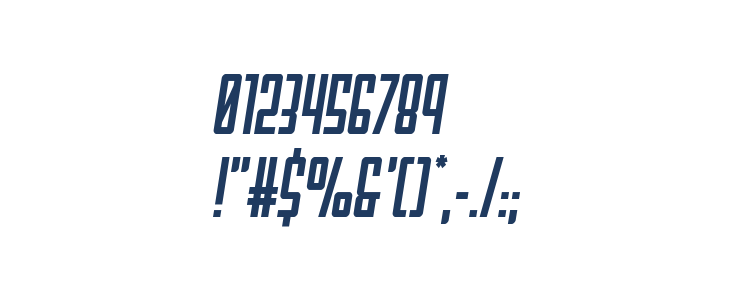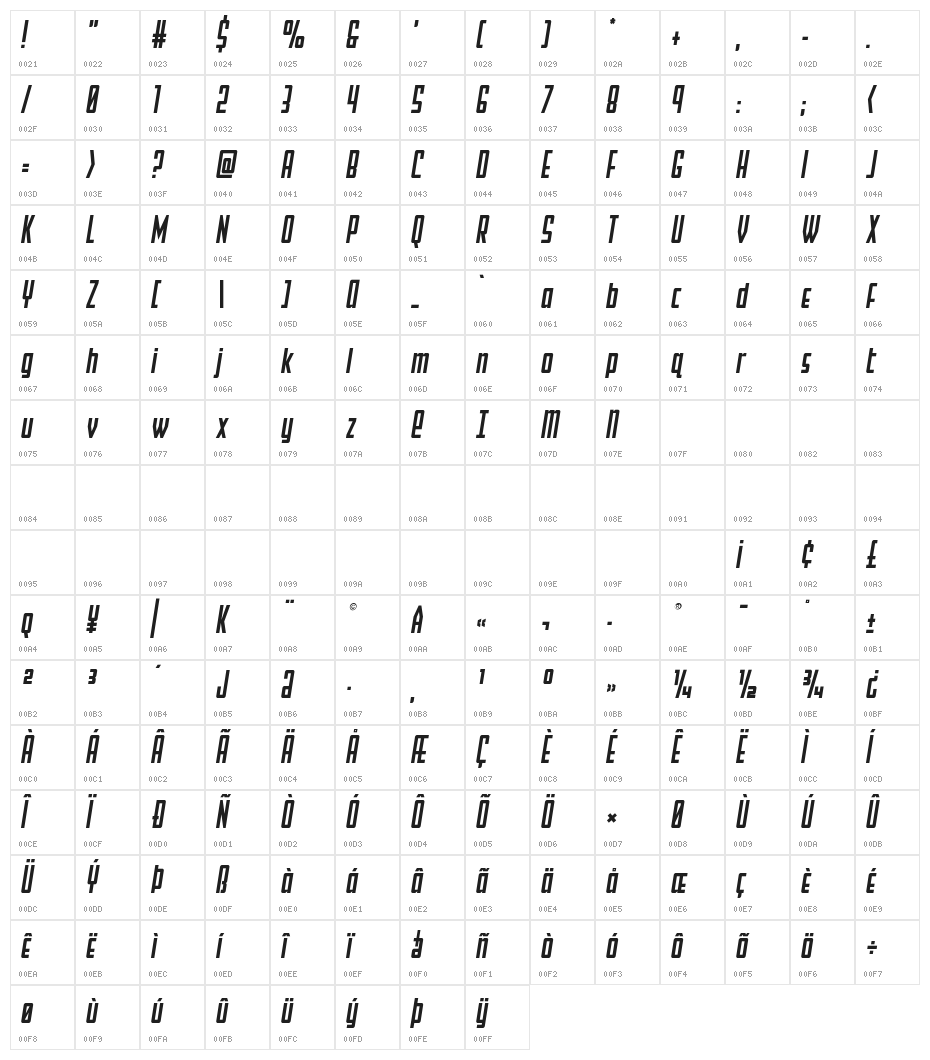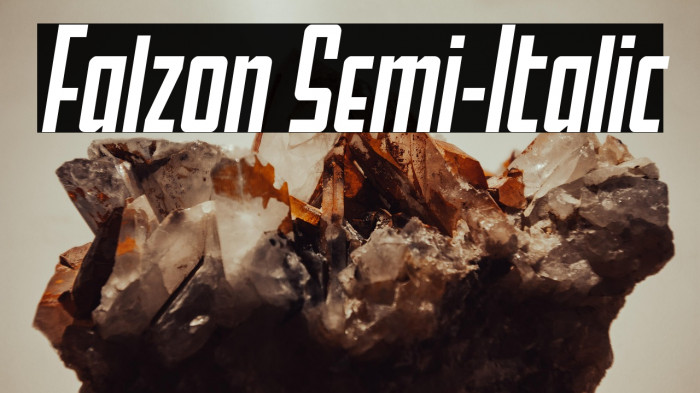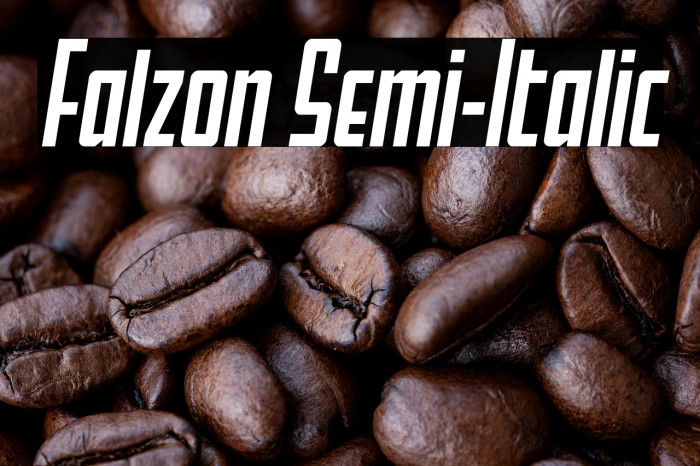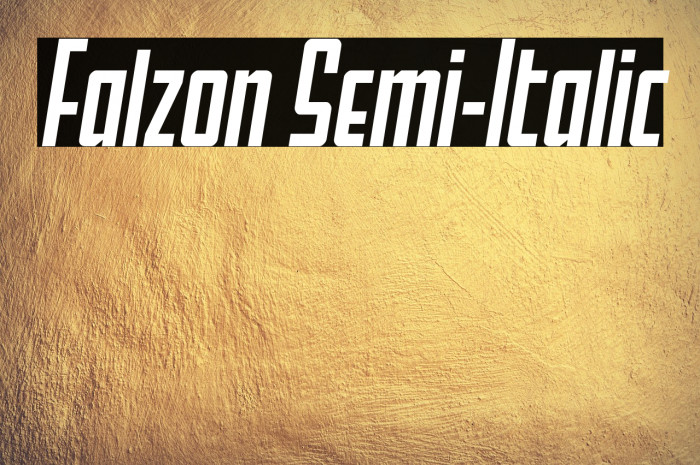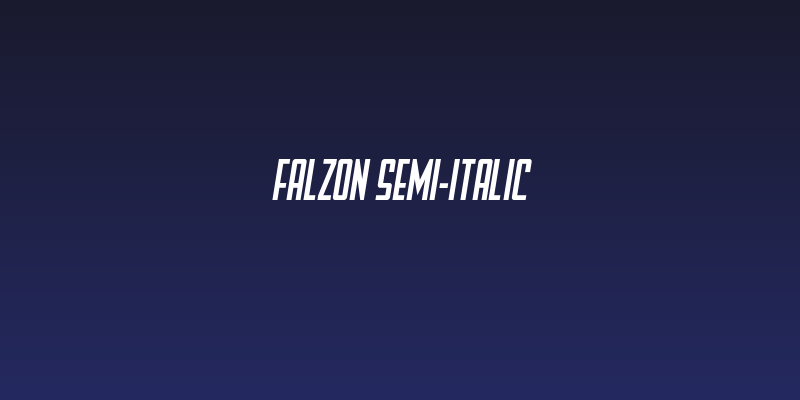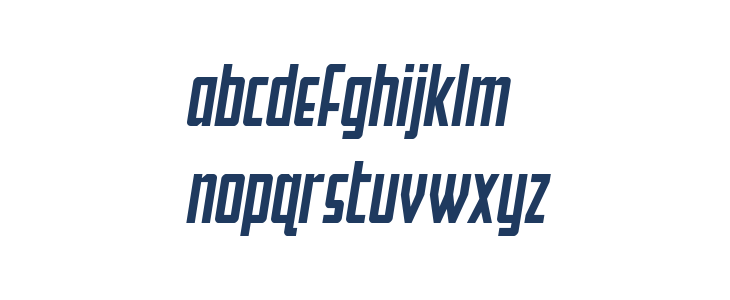
Falzon Semi-Italic Font
Falzon Semi-Italic Description
This font features a dynamic and modern design with a distinct italic slant, giving it a sense of motion and energy. The characters are bold and slightly condensed, providing a strong visual impact. The uppercase and lowercase letters maintain a consistent style, with sharp angles and clean lines. The numerals and special characters are designed to match the overall aesthetic, ensuring uniformity across all text elements. This font's unique style makes it suitable for projects that require a contemporary and assertive look.